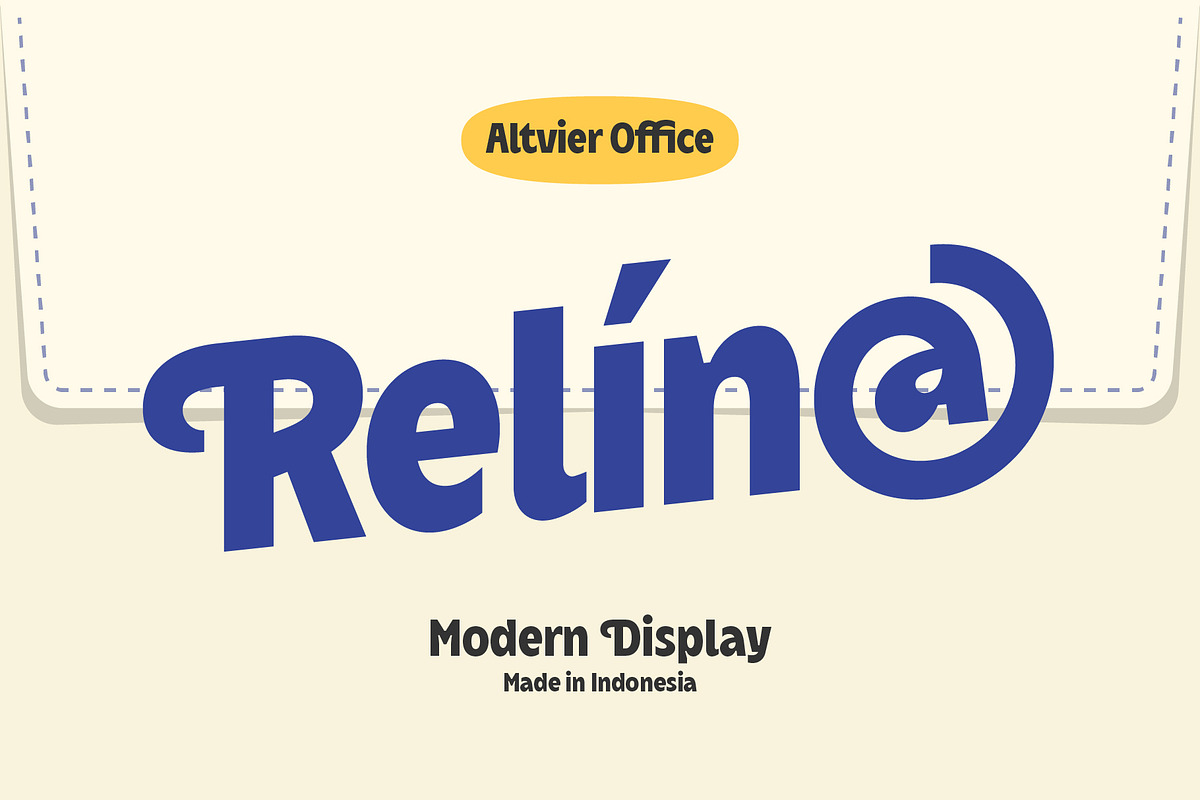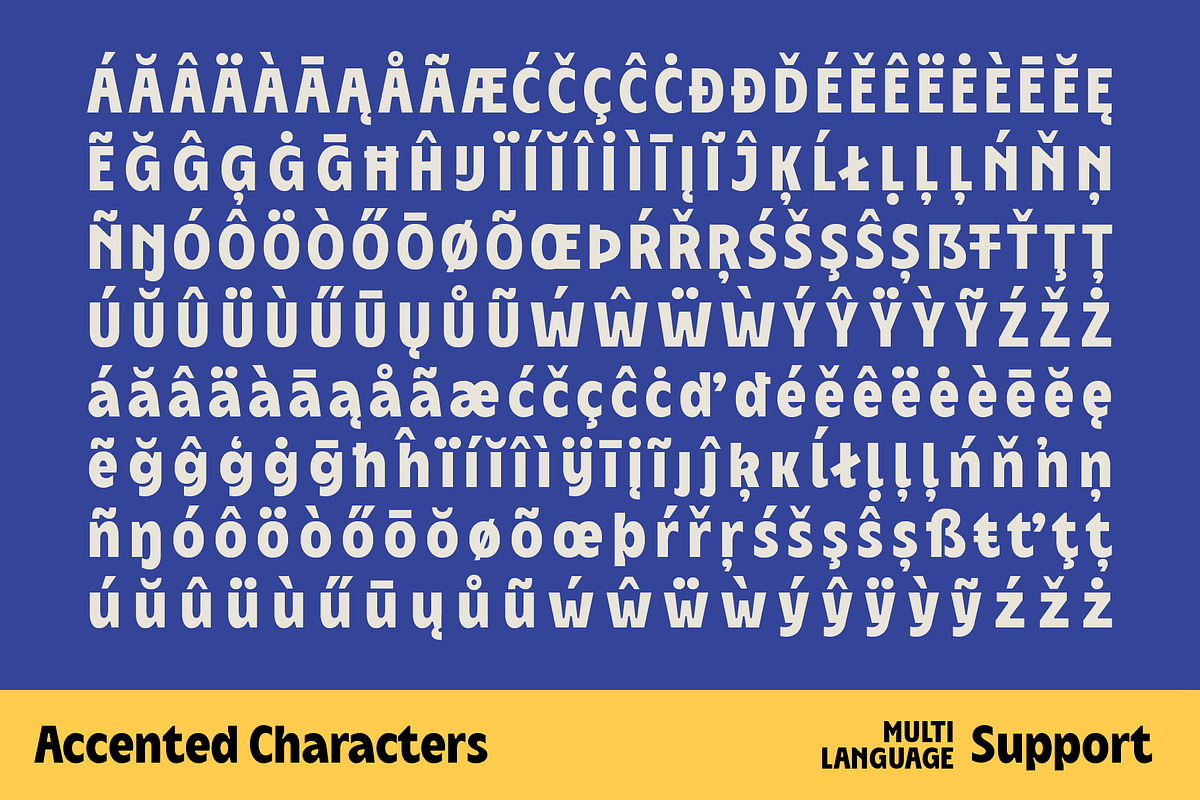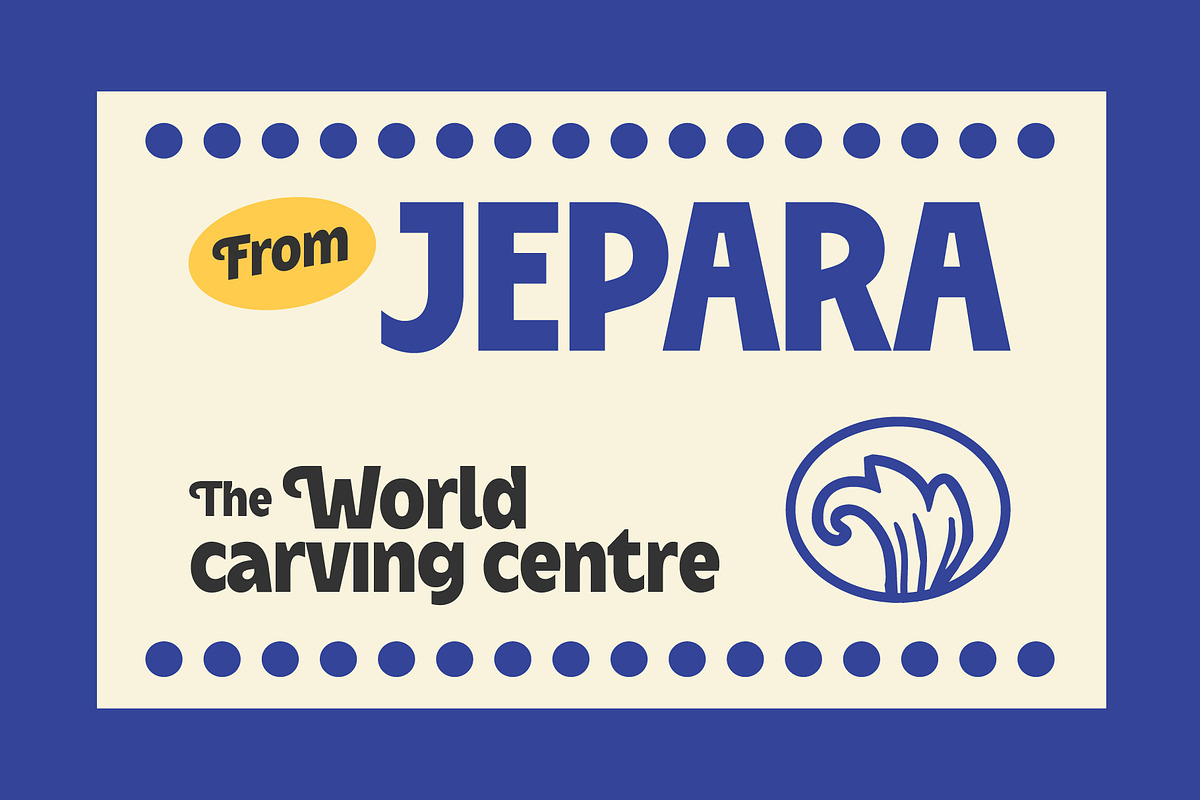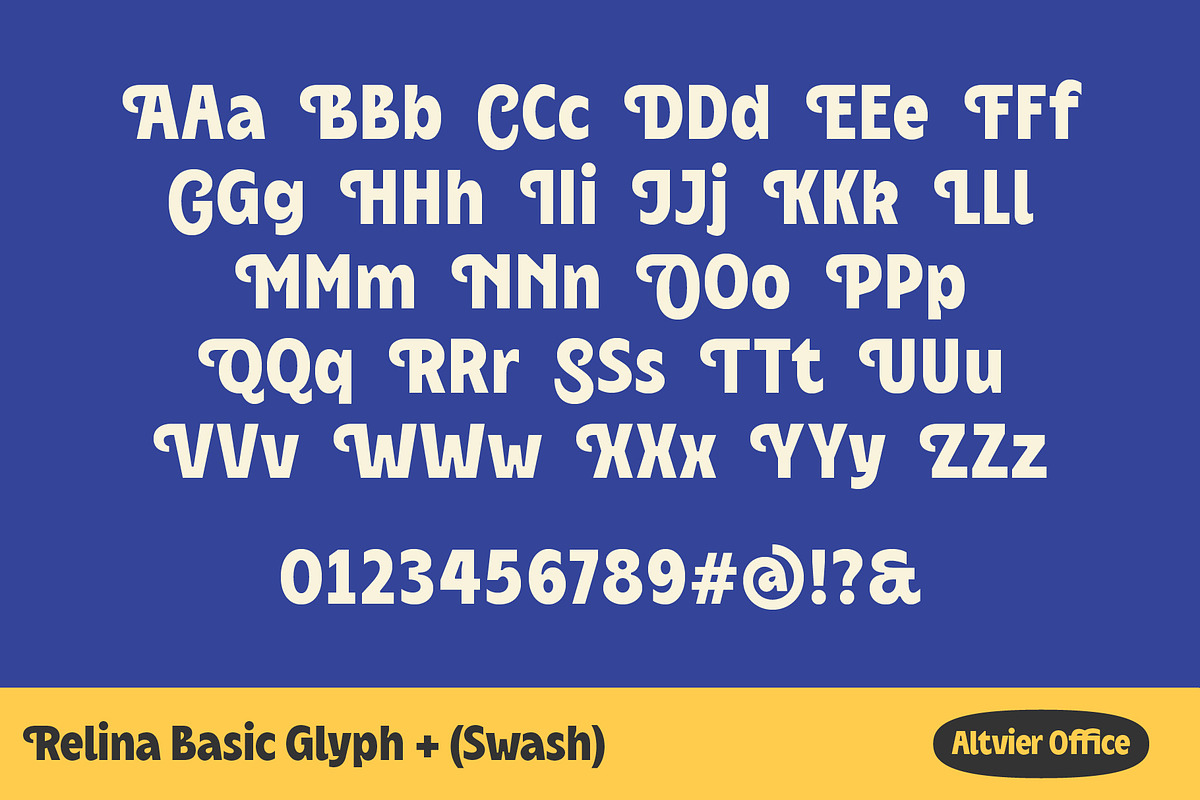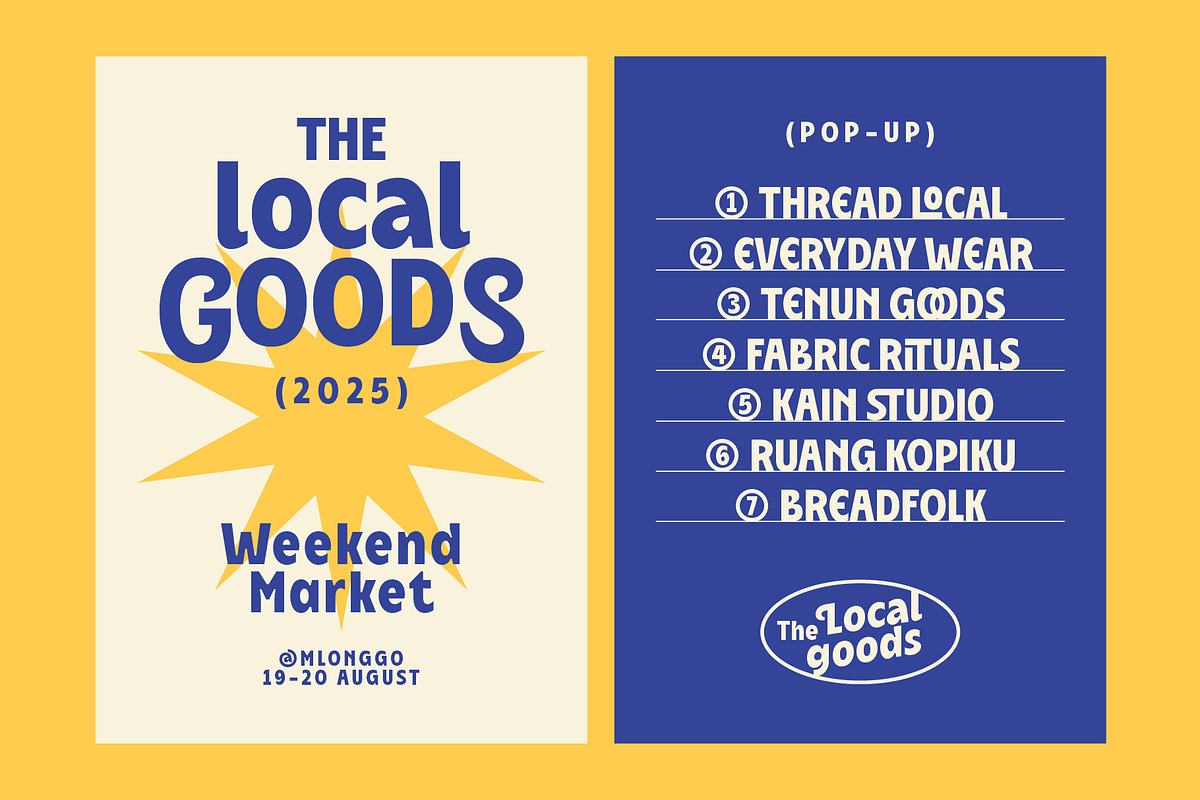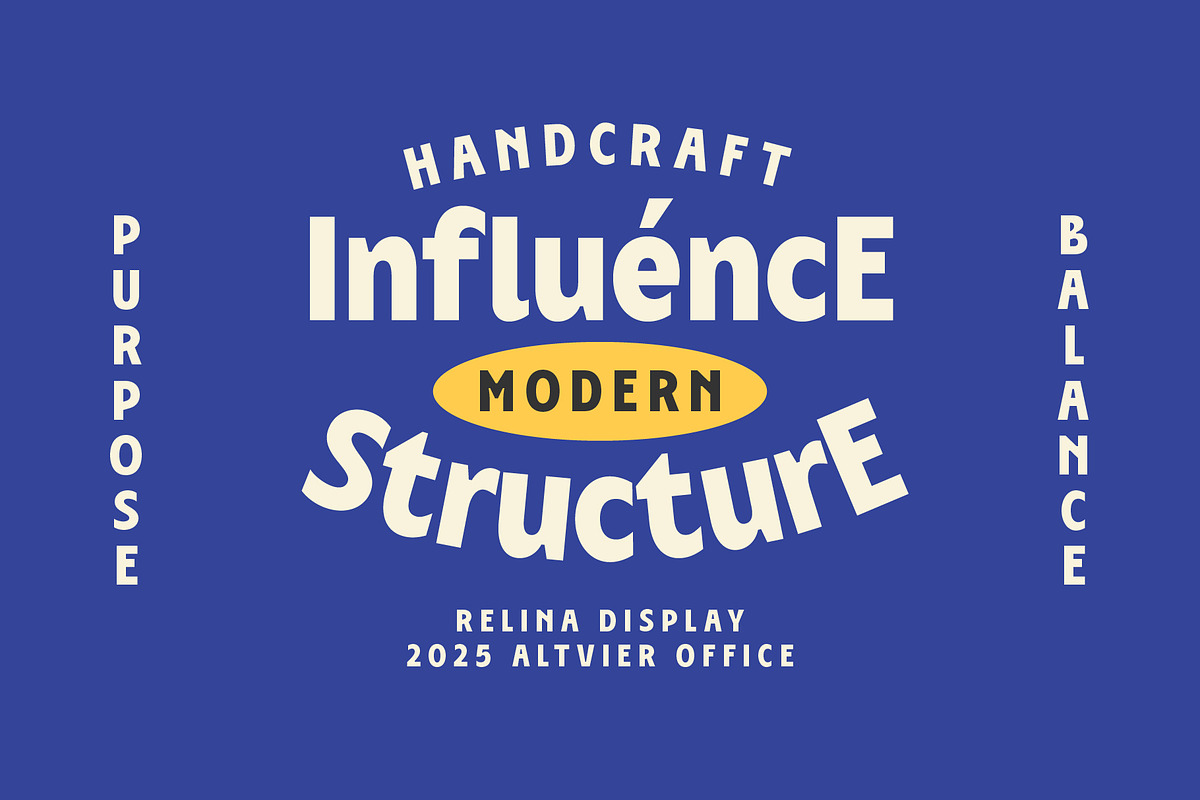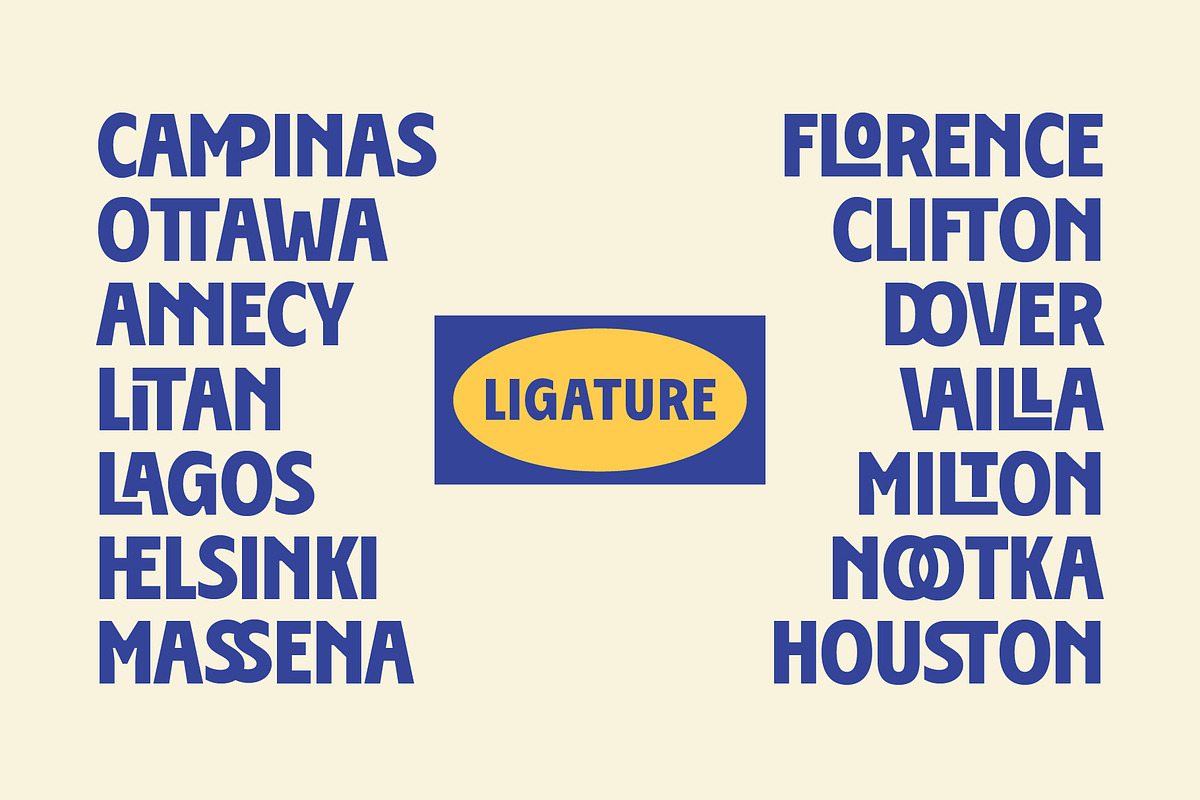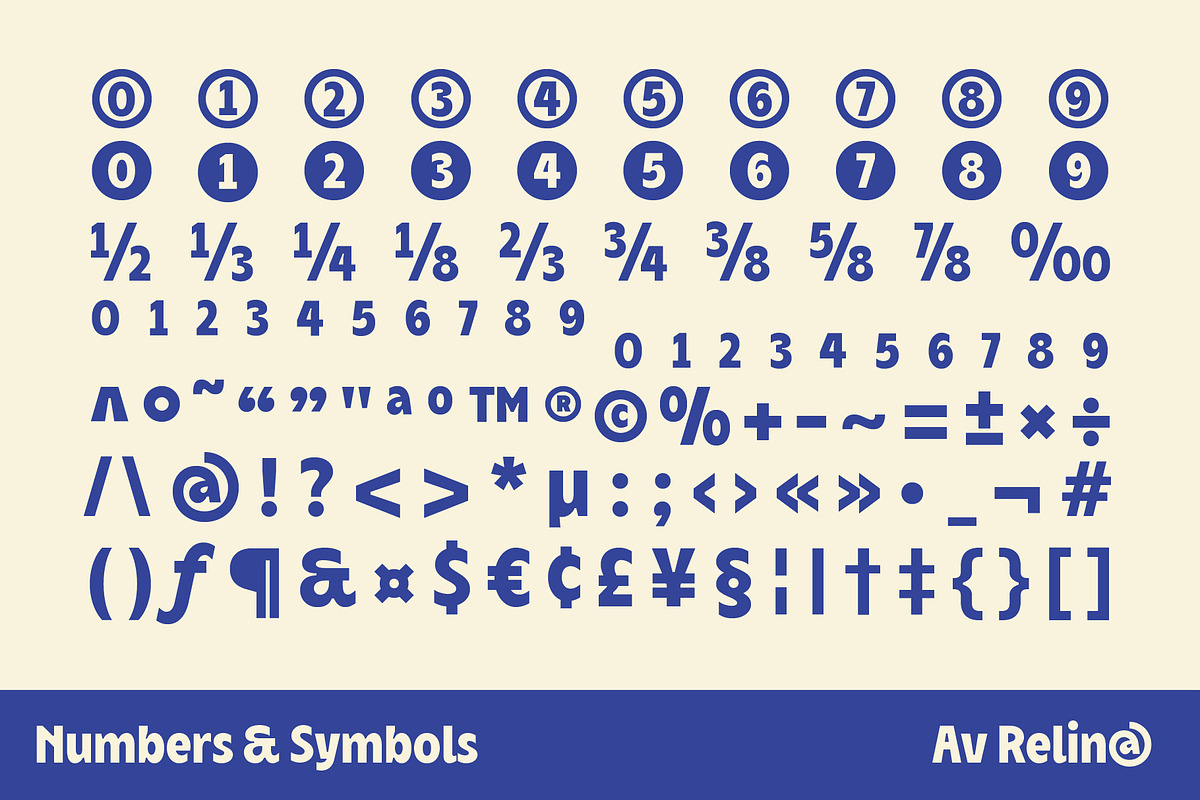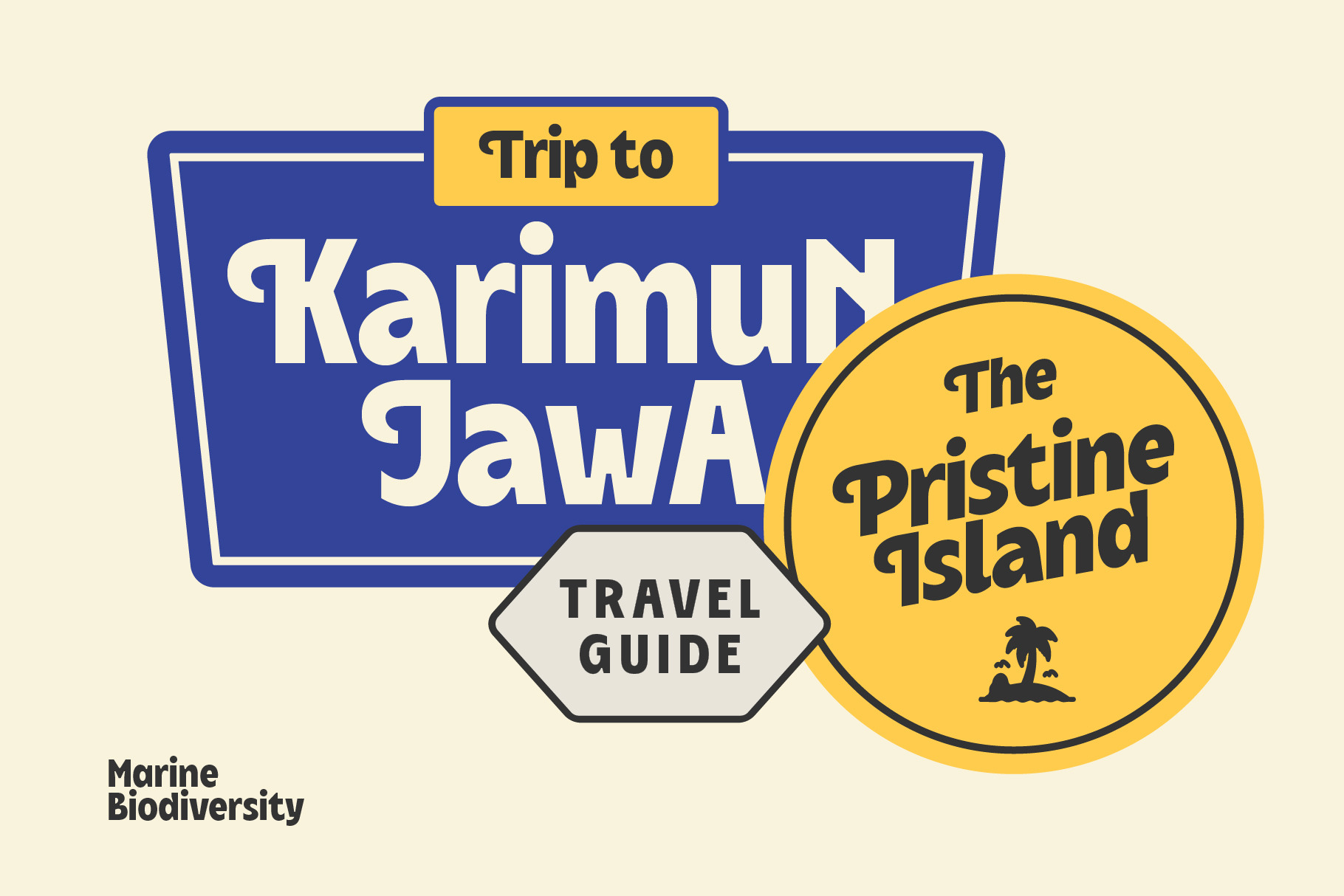
Relina - Display Font
Av Relina. A modern display font with handcrafted character. Inspired by local craftsmanship. Designed for modern branding. Soft & bold letterforms Playful accents, strong presence. Playful accents, strong silhouettes Relina comes with alternate forms and swash details to add rhythm and expression when need it.
Relina is built for headlines, branding, packaging, posters, and visual stories that need warmth with confidence.
Includes Uppercase • Lowercase • Numbers • Symbols • Swashes • Accented Characters Multi-language Support